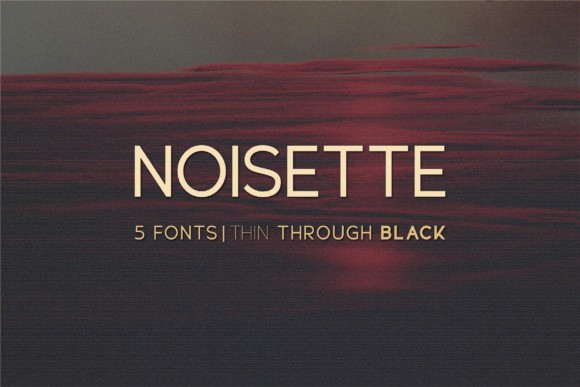
Are you in search of the perfect font to elevate your Christmas sign designs? Look no further than Noisette Font, the ultimate choice for designers and content creators. Created by the talented team at Huntype, this sans serif font family embodies elegance, modernity, and versatility.
Noisette Font offers a remarkable collection of five distinct weights: THIN, LIGHT, REGULAR, BOLD, and BLACK. Each weight is meticulously crafted to provide a wide range of creative possibilities, ensuring that your projects will stand out with sophistication and contemporary style.
What sets Noisette Font apart is its ability to seamlessly blend subtlety and impact. Whether you're aiming for a delicate and refined touch or a bold and powerful statement, this font family has got you covered. Its versatility allows you to effortlessly convey your message, capturing the attention of your audience and leaving a lasting impression.
Imagine the elegance and charm that Noisette Font brings to your Christmas sign designs. Its captivating curves and clean lines will instantly elevate your creations, making them visually stunning and memorable. The fonts in this collection are carefully designed to evoke emotions of joy, warmth, and celebration, perfectly capturing the spirit of the holiday season.
But Noisette Font is not just limited to Christmas designs. Its timeless appeal makes it suitable for a wide range of projects, from branding and packaging to social media graphics and website designs. The possibilities are endless when you have such a versatile font family at your disposal.